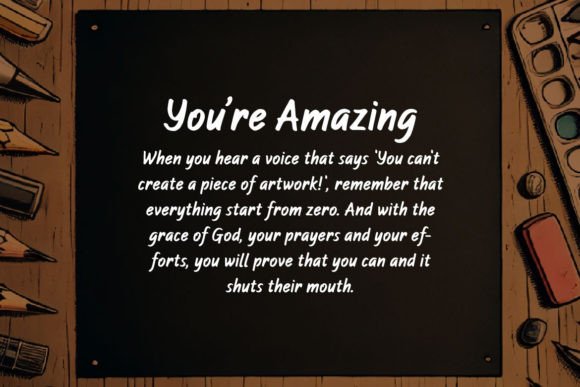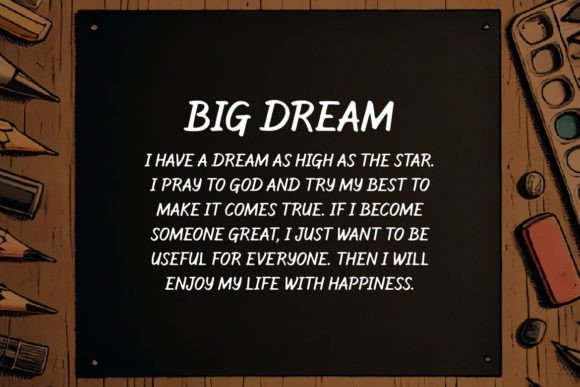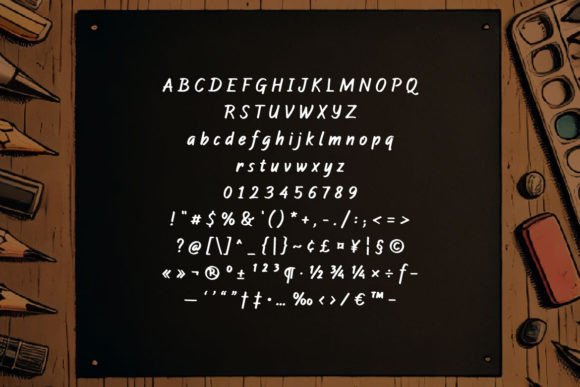
Introducing Comiquest Font: Elevate Your Designs with Elegance and Versatility
In the world of typography, finding the perfect font that combines elegance, versatility, and personality can be a daunting task. However, with the Comiquest – Handwritten Comic Font, your search ends here. This beautifully crafted font is a unique blend of casual handwritten charm and modern sans-serif simplicity, making it an ideal choice for designers and crafters looking to add a personal touch to their projects.
The Perfect Fusion of Styles
The Comiquest Font stands out with its elegant and versatile design. It seamlessly merges the warmth and personality of handwritten fonts with the clean and professional look of modern sans-serif fonts. This fusion makes Comiquest incredibly versatile, suitable for a wide range of applications from branding and logos to invitations, posters, and more.
Key Features of Comiquest Font
• Elegant and Versatile: Comiquest boasts an elegant appearance that can elevate any design while offering versatility for various creative projects.
• Handwritten Comic Style: Its handwritten comic style adds a unique and playful touch, making it perfect for projects that require a bit of personality.
• Clean and Professional: Despite its playful style, Comiquest maintains a clean and professional look, ensuring your designs are both stylish and approachable.
• Easy to Read: The font’s clarity makes it easy to read, which is crucial for readability in various applications.
• Highly Customizable: With Comiquest, you have the flexibility to adjust the font to fit your project’s tone and style, whether you’re aiming for modern, playful, elegant, or casual.
Use Cases for Comiquest Font
The versatility of Comiquest Font makes it suitable for numerous design projects. Here are some of the ideal use cases:
• Branding and Logos: Create a memorable brand identity with a logo that stands out yet remains professional.
• Invitations and Cards: Add a personal touch to your invitations, greeting cards, and other personal correspondence.
• Posters and Flyers: Make your posters and flyers pop with a font that captures attention and conveys your message effectively.
• Digital Media: Use Comiquest in your digital content, such as blog headings, social media posts, and website content, to maintain a consistent and appealing visual identity.
• Crafting and DIY Projects: Perfect for crafters, Comiquest can add a professional yet personal touch to your handmade product labels, tutorials, and promotional materials.
Why Choose Comiquest Font?
Choosing Comiquest Font for your projects comes with numerous benefits:
• Unique Style: Stand out from the crowd with a font that is both unique and stylish.
• Time-Saving: With its versatility, you can use Comiquest across multiple projects, saving you time and effort in searching for different fonts.
• Professional Look: Despite its unique style, Comiquest offers a professional appearance suitable for businesses and personal brands.
• Support for Various Languages: Comiquest likely supports multiple languages, making it a great choice for global brands and projects.
In conclusion, the Comiquest – Handwritten Comic Font is a valuable addition to any designer’s or crafter’s toolkit. Its elegant and versatile design, combined with its readability and customization options, make it an excellent choice for a wide range of projects. Whether you’re looking to create a brand identity, design eye-catching posters, or simply add a personal touch to your crafting projects, Comiquest is up to the task. With its unique blend of casual charm and modern simplicity, Comiquest is poised to elevate your designs and bring a fresh perspective to your creative work. So why wait? Download Comiquest Font now and discover a world of possibilities for your designs!